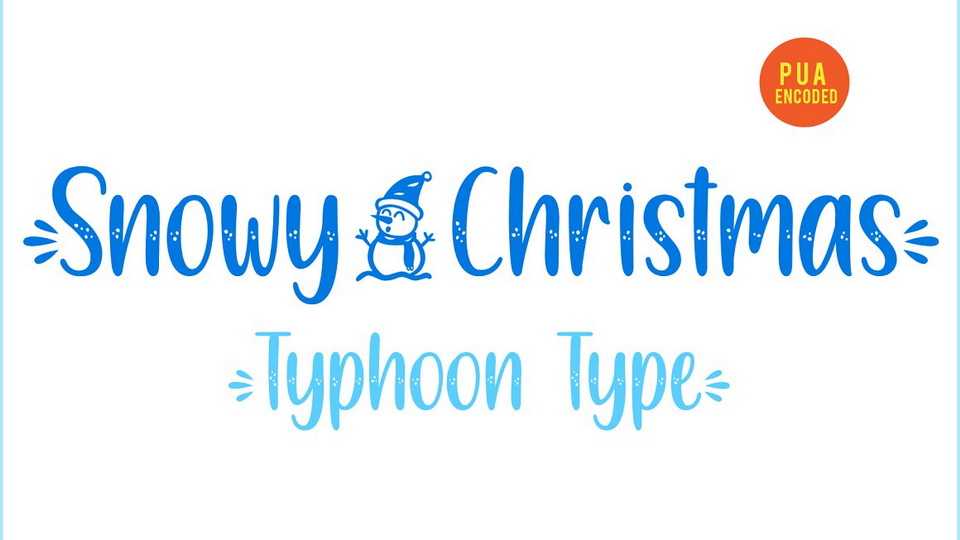
Download Snowy Christmas font, a lovely handwritten typeface with decorative holiday elements. Snowy Christmas is perfect for logos, name tag, advertising, product packaging, clothing, social media and greeting cards.